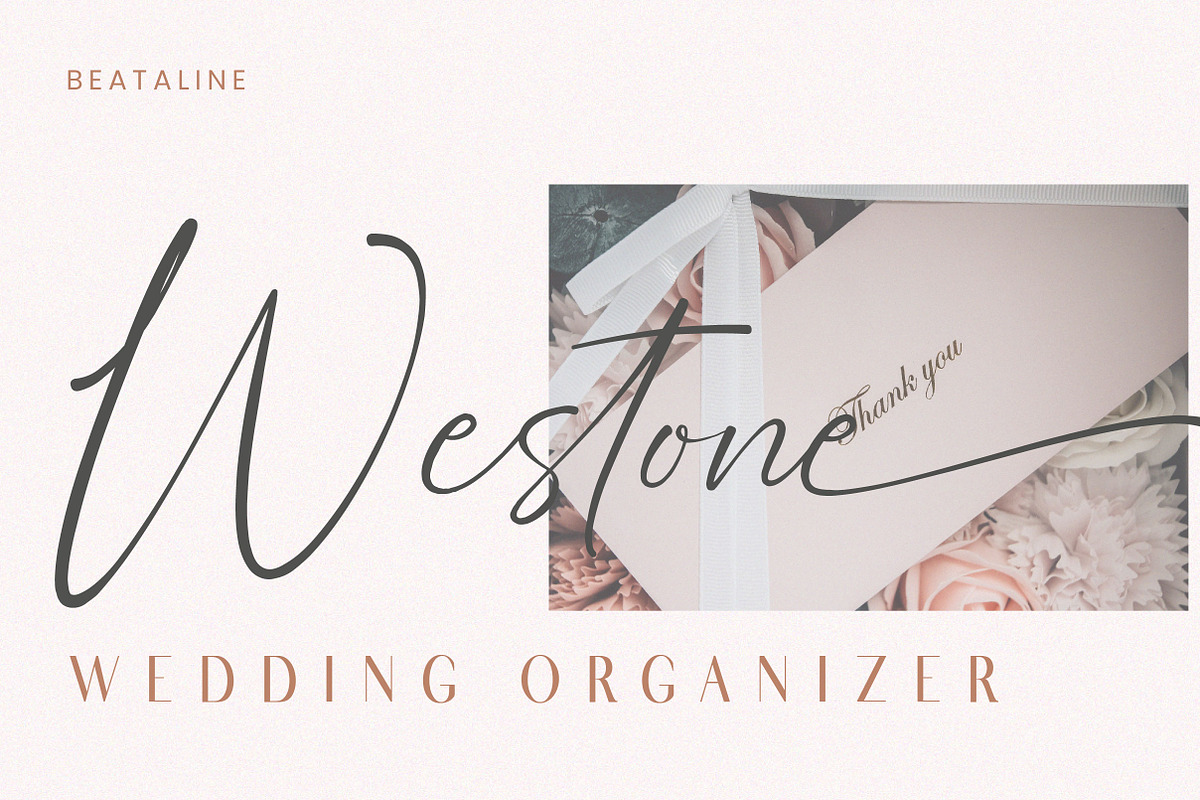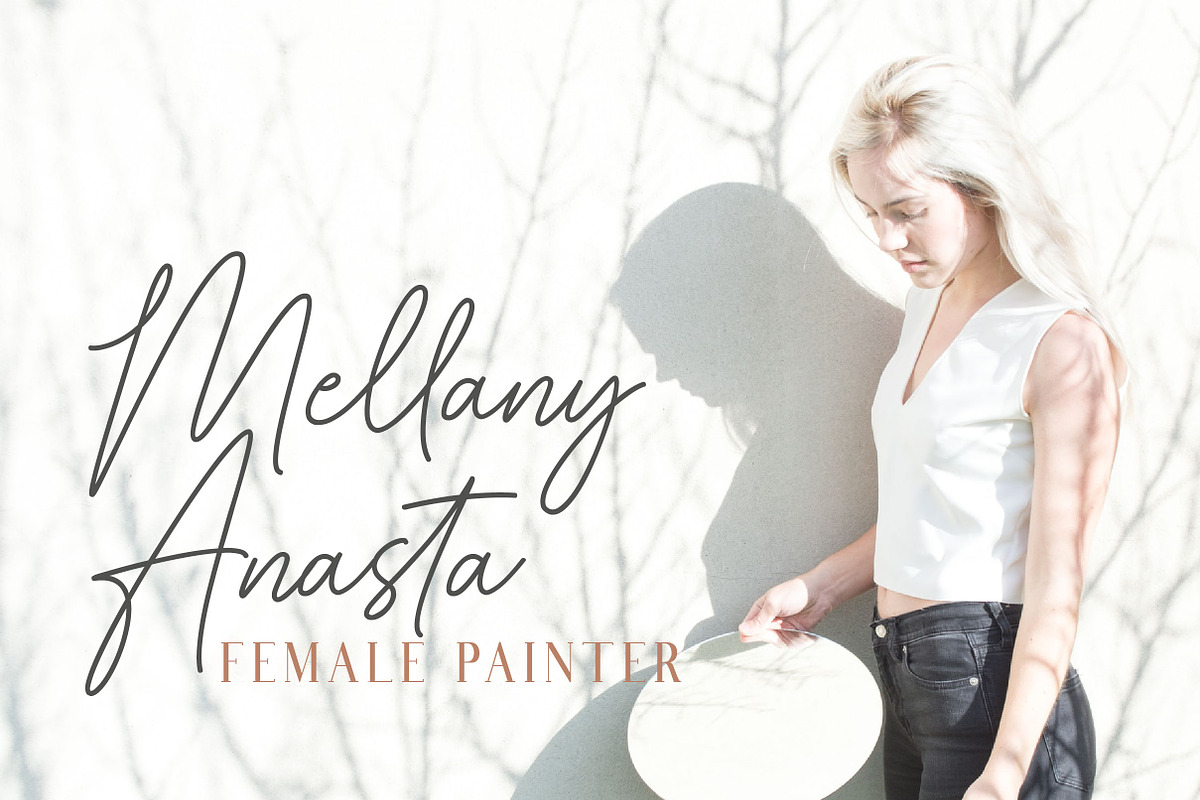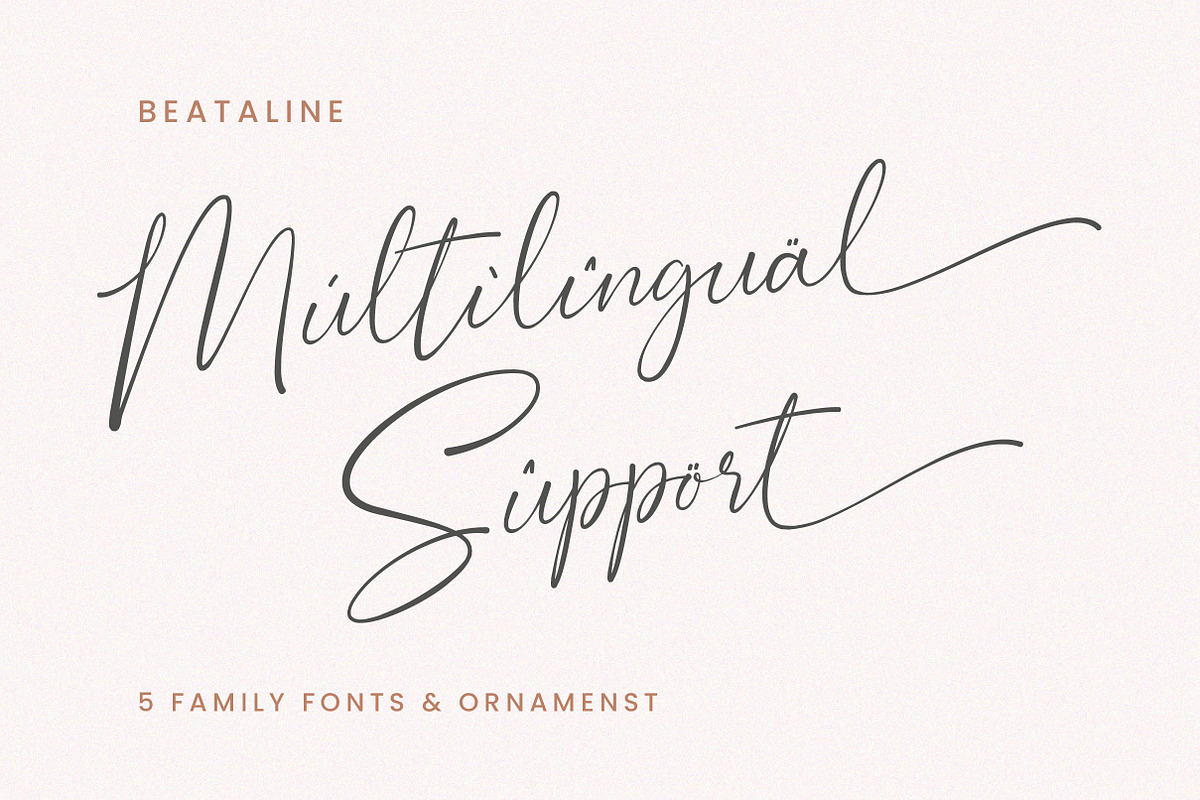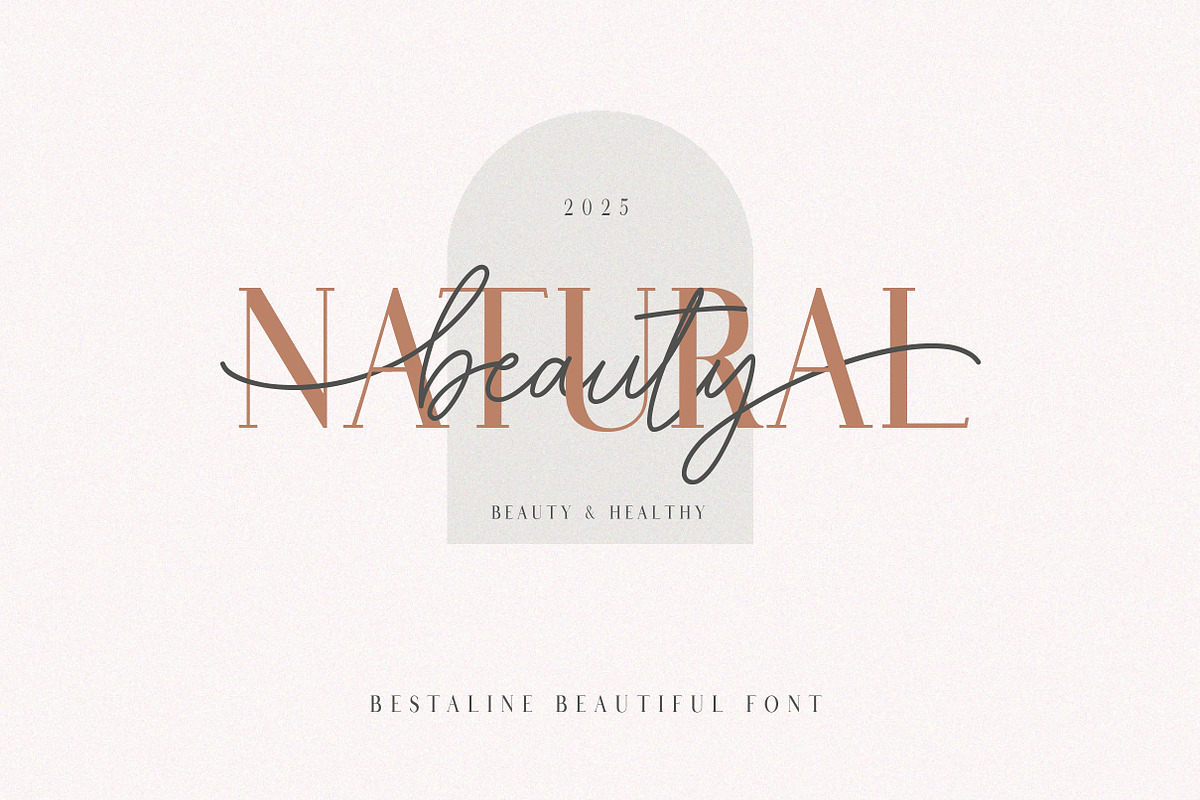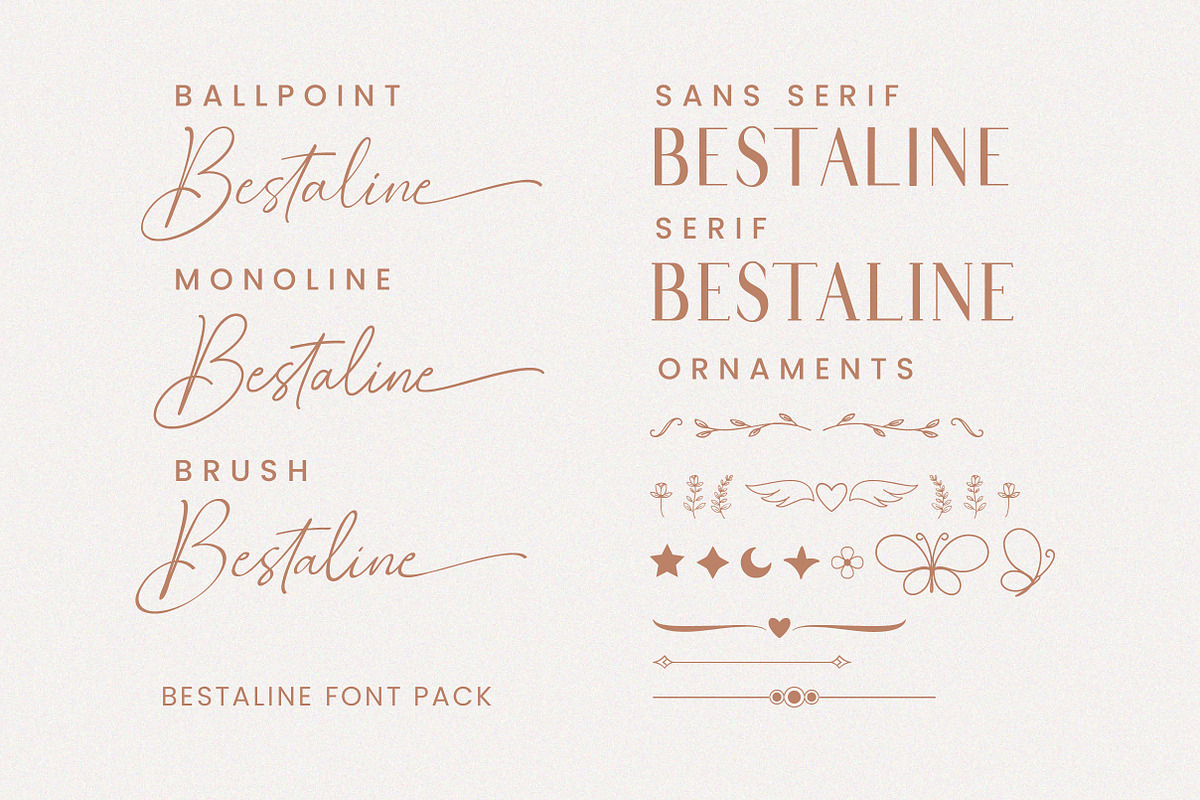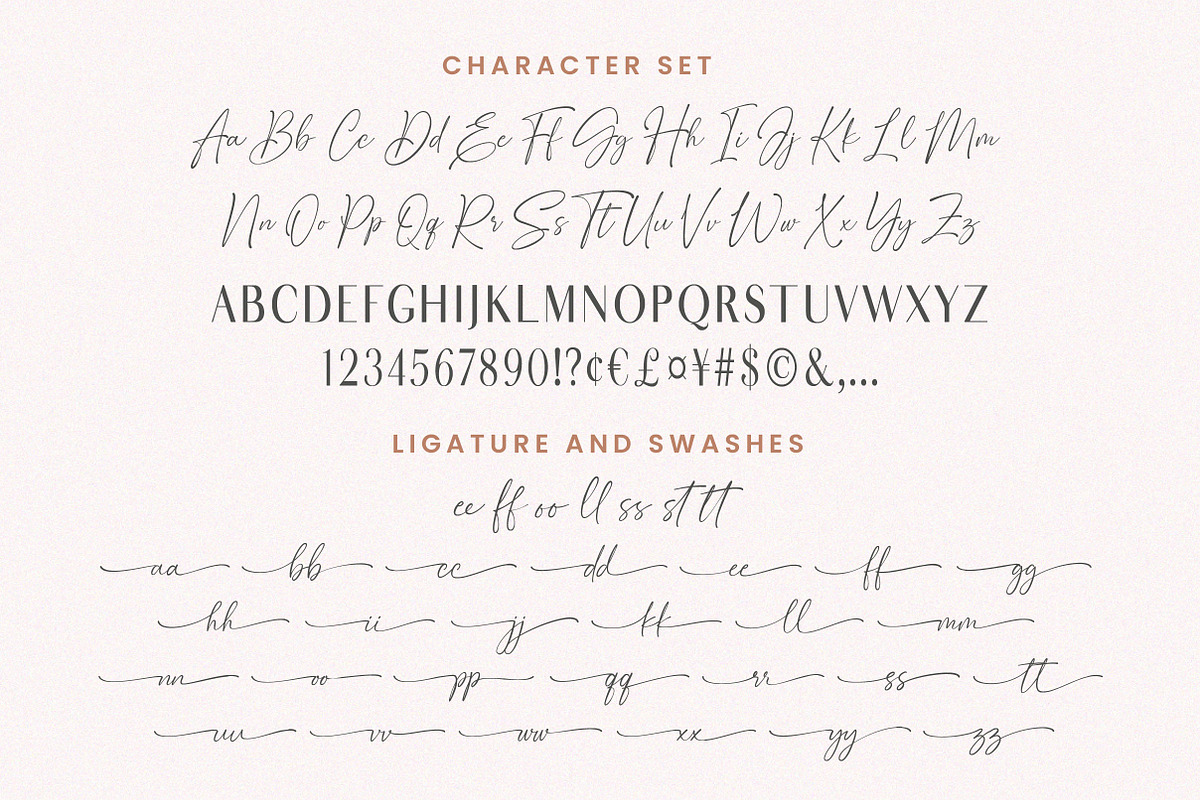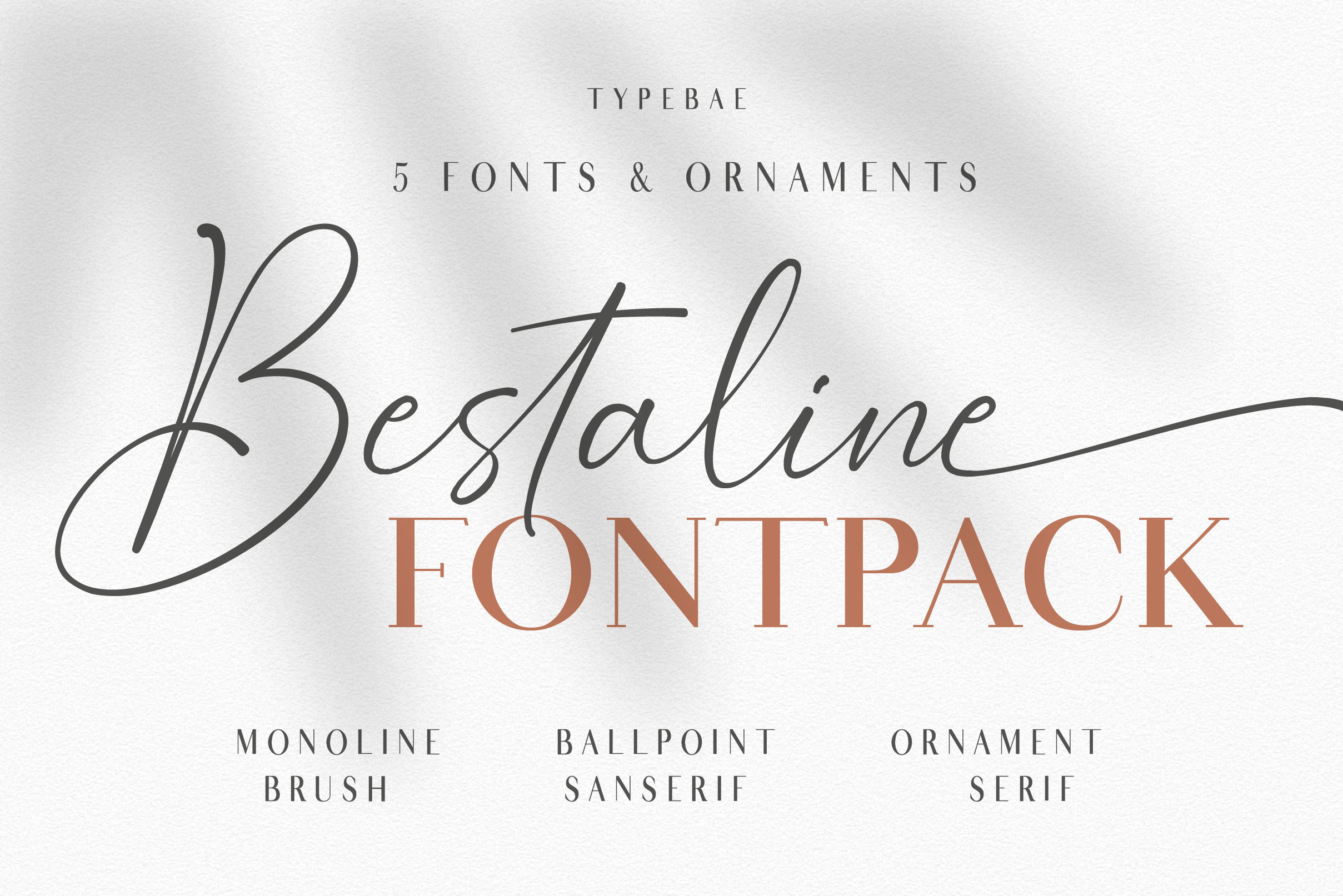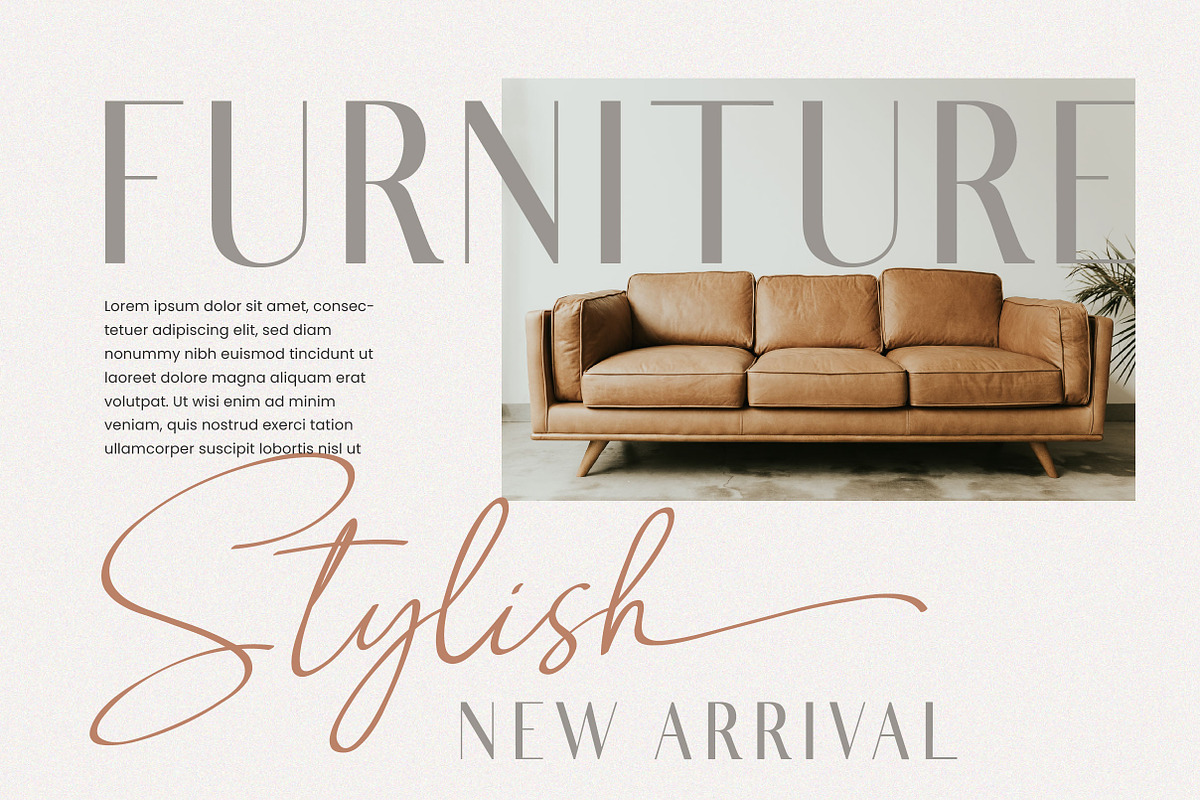
Bestaline Font Collection
ntroducing Bestaline Font Collection
Bestaline is a versatile and elegant font collection. It has 5 styles of fonts and ornaments, can be used and combined for various projects.
To use the beginning and ending swashes ( tails ) you don't need to use software that supports opentype, because we have made it separately so it's very easy to use.
- Stylistic Alternate